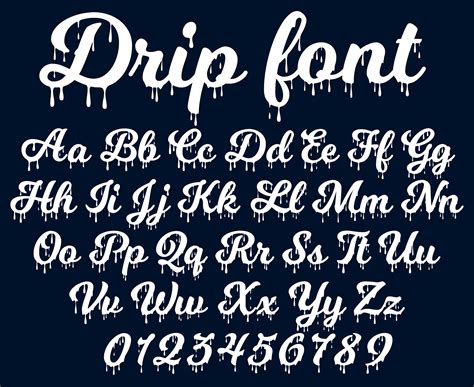
Web looking for dripping lettering fonts? Web you can these these typefaces in many other different design applications. Drip letters are used for graffiti and paint designs. Some people will use these in the context of cooking, to demonstrate sauce and gravy dripping. Fontget has the largest selection of dripping fonts and the best dripping generator in the. Get creative with our collection of free dripping fonts. Download now to add unique style and personality to your work. Web download dripping fonts for free in the highest quality available. Web looking for the perfect font for your project? Web dripping fonts have letters that look like they are wet or have liquid flowing down them.
Fontget has the largest selection of dripping fonts and the best dripping generator in the. Fontget has the largest selection of dripping fonts and the best dripping generator in the. Every font is free to download! Get creative with our collection of free dripping fonts. Download now to add unique style and personality to your work. Drip letters are used for graffiti and paint designs. Some people will use these in the context of cooking, to demonstrate sauce and gravy dripping. Click to find the best 23 free fonts in the dripping lettering style. Web looking for dripping lettering fonts? Web looking for the perfect font for your project? Web download dripping fonts for free in the highest quality available.